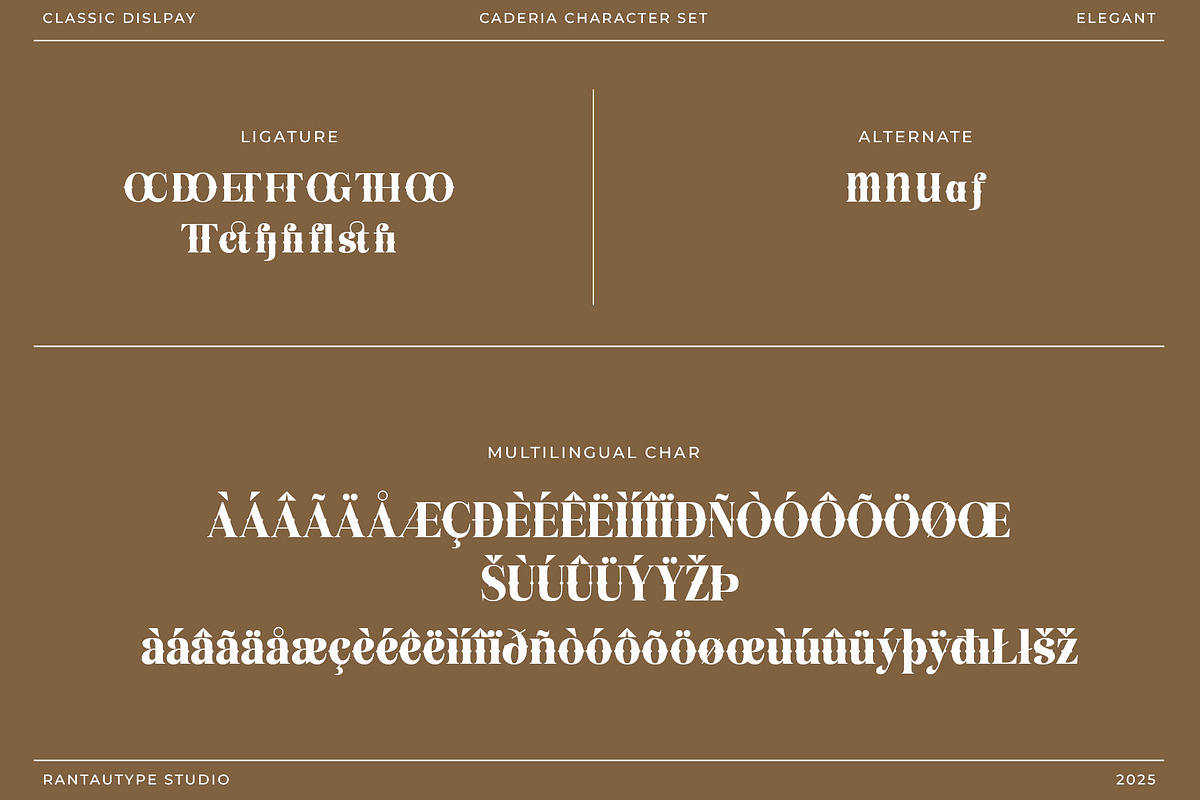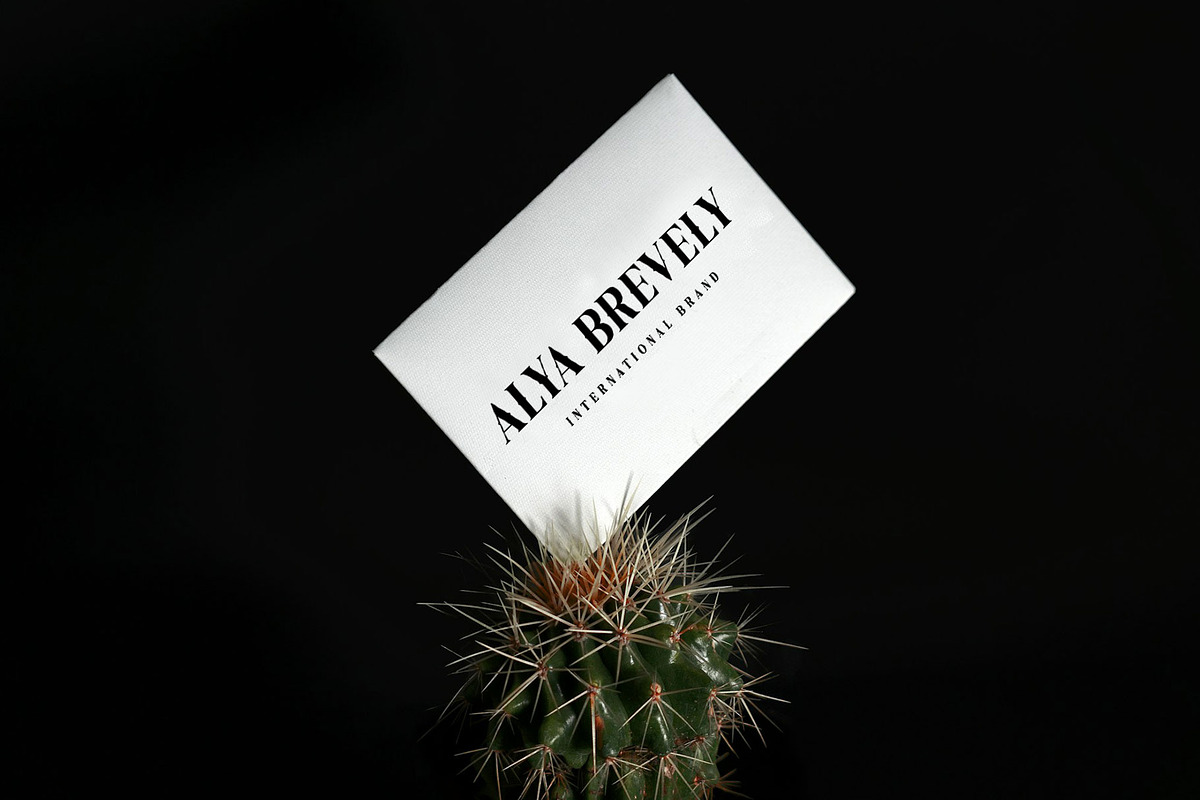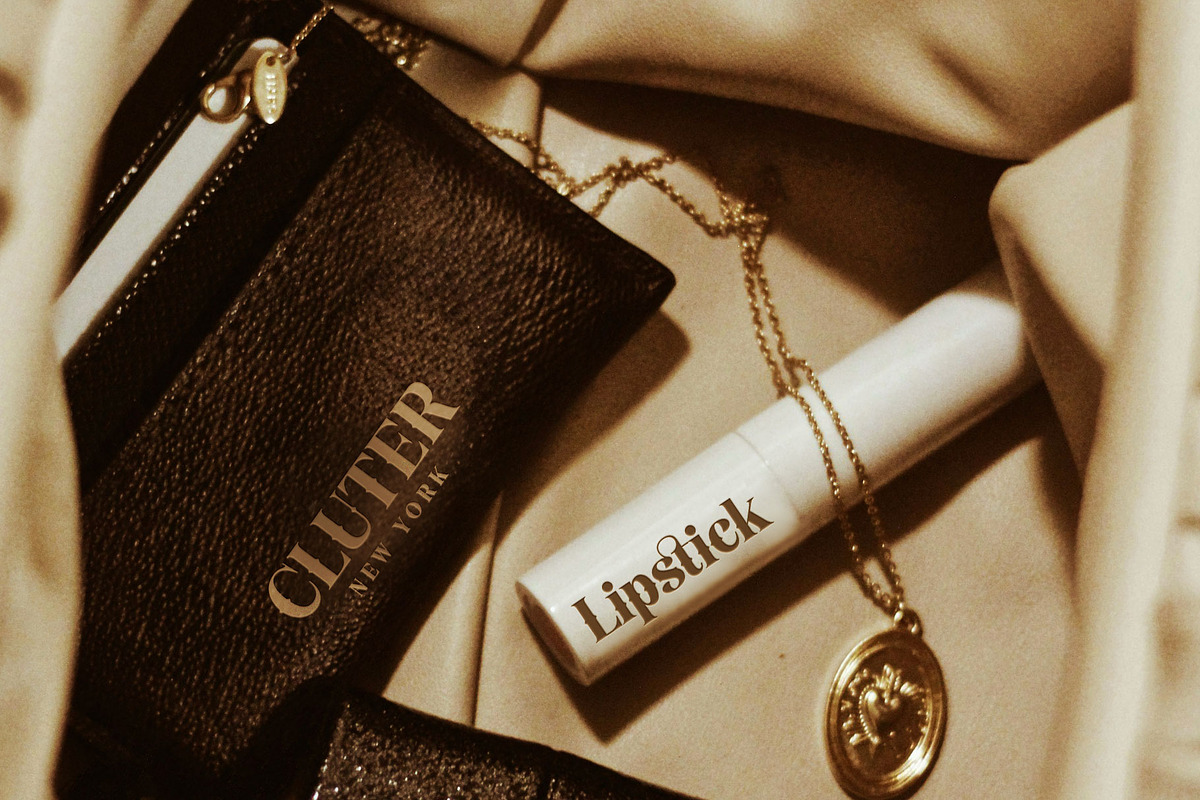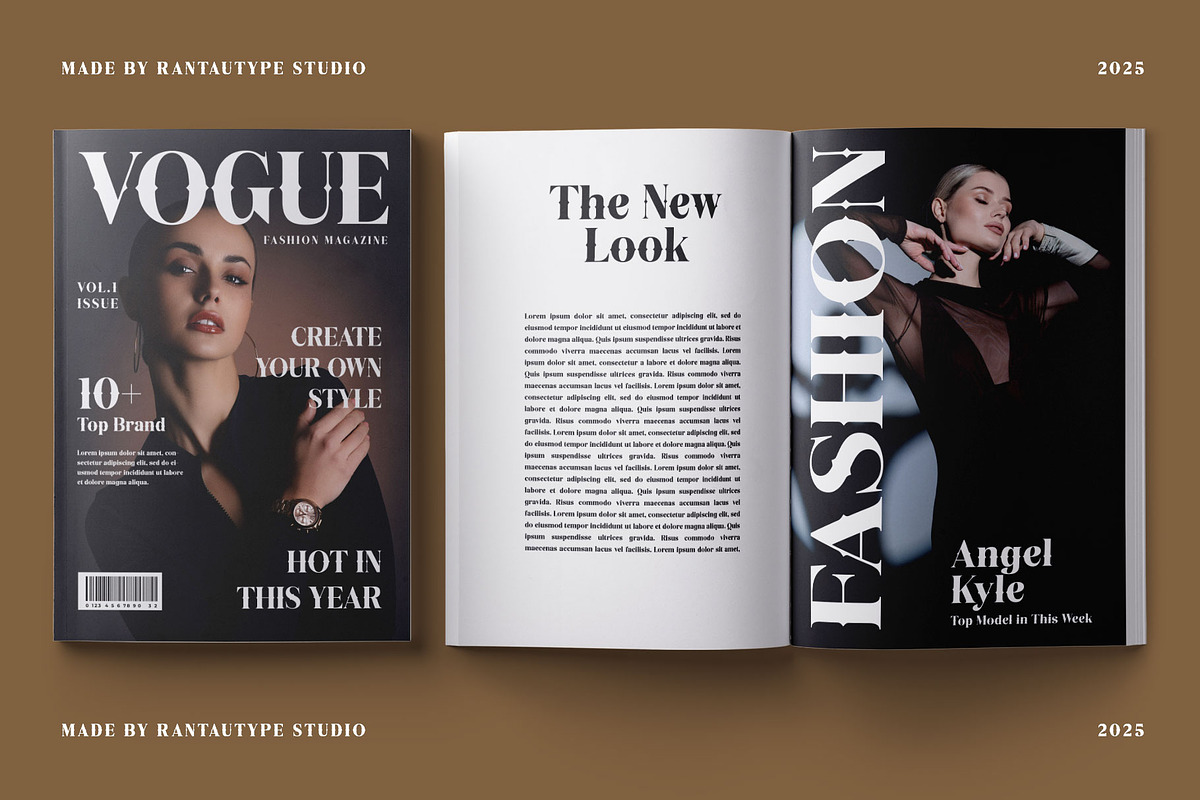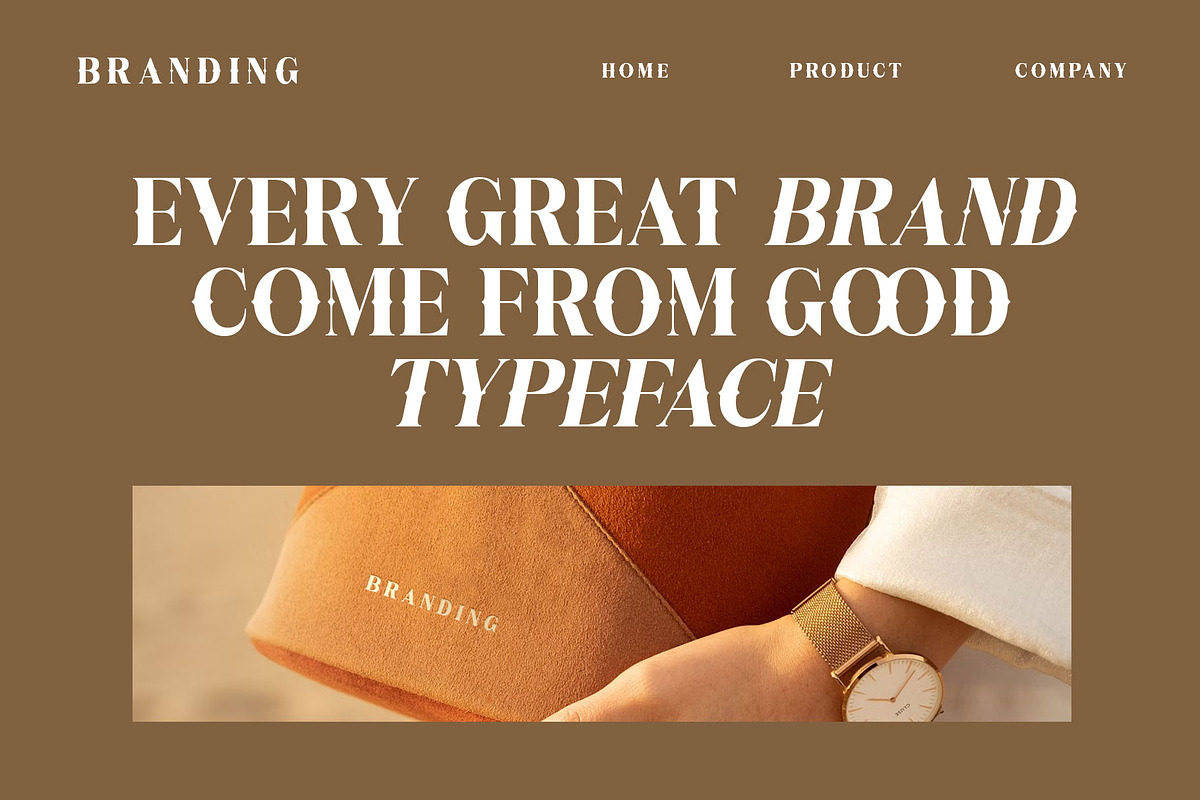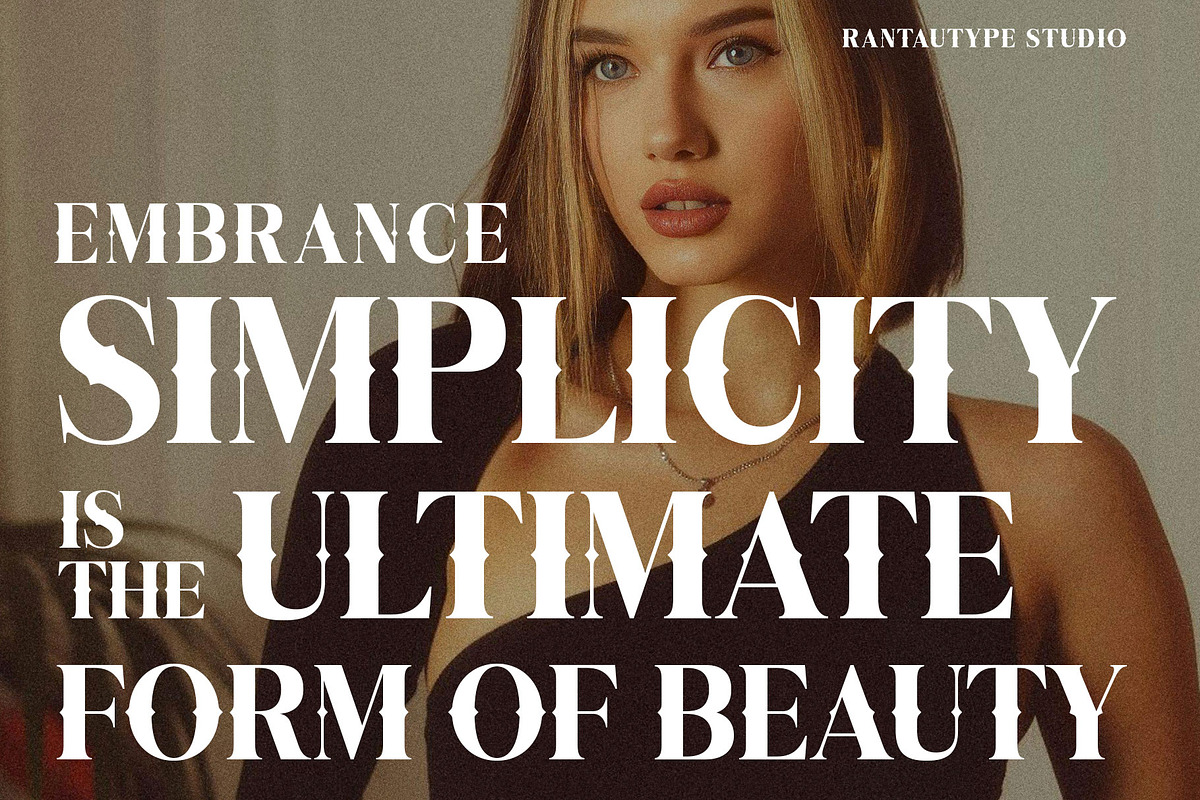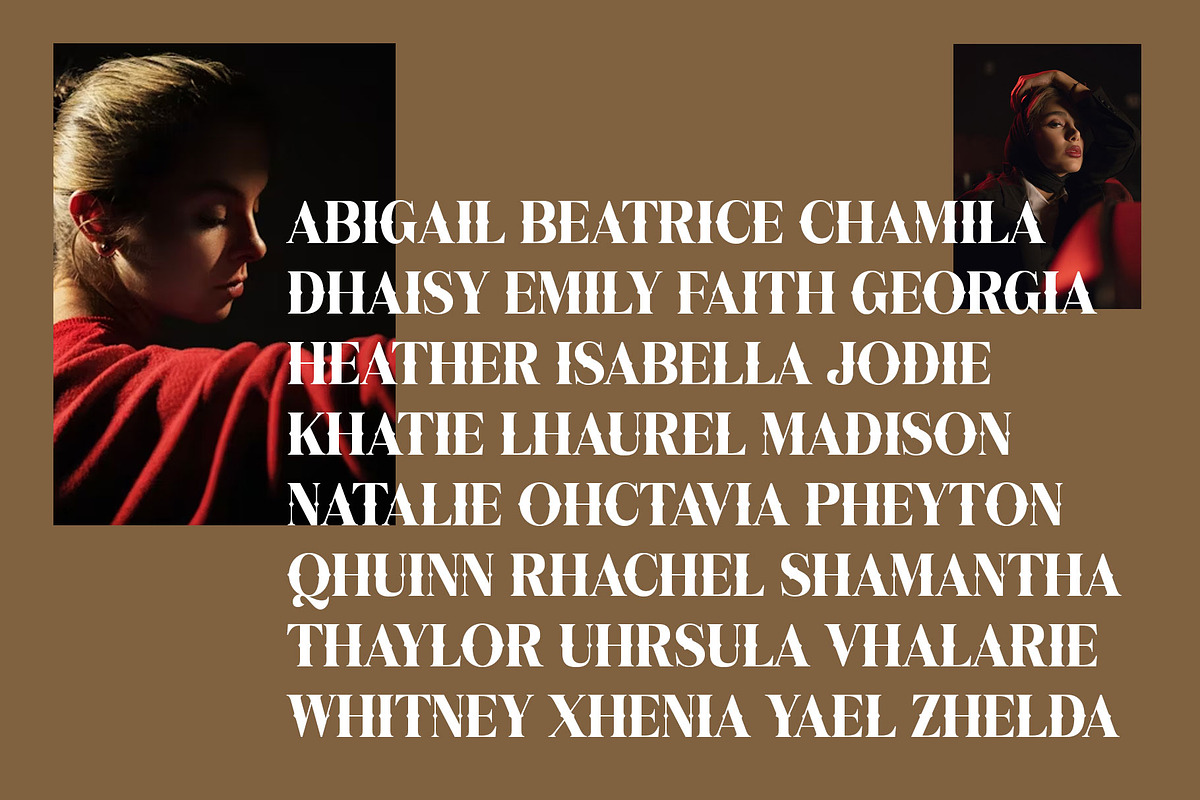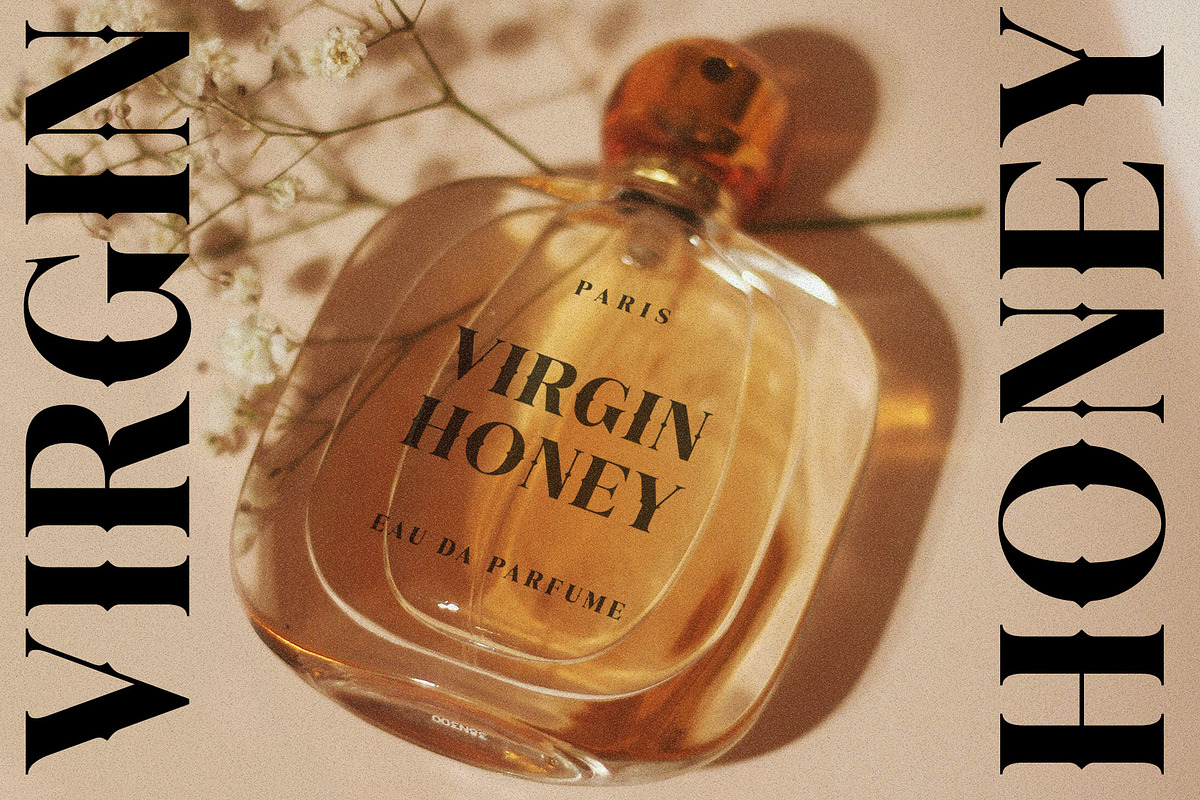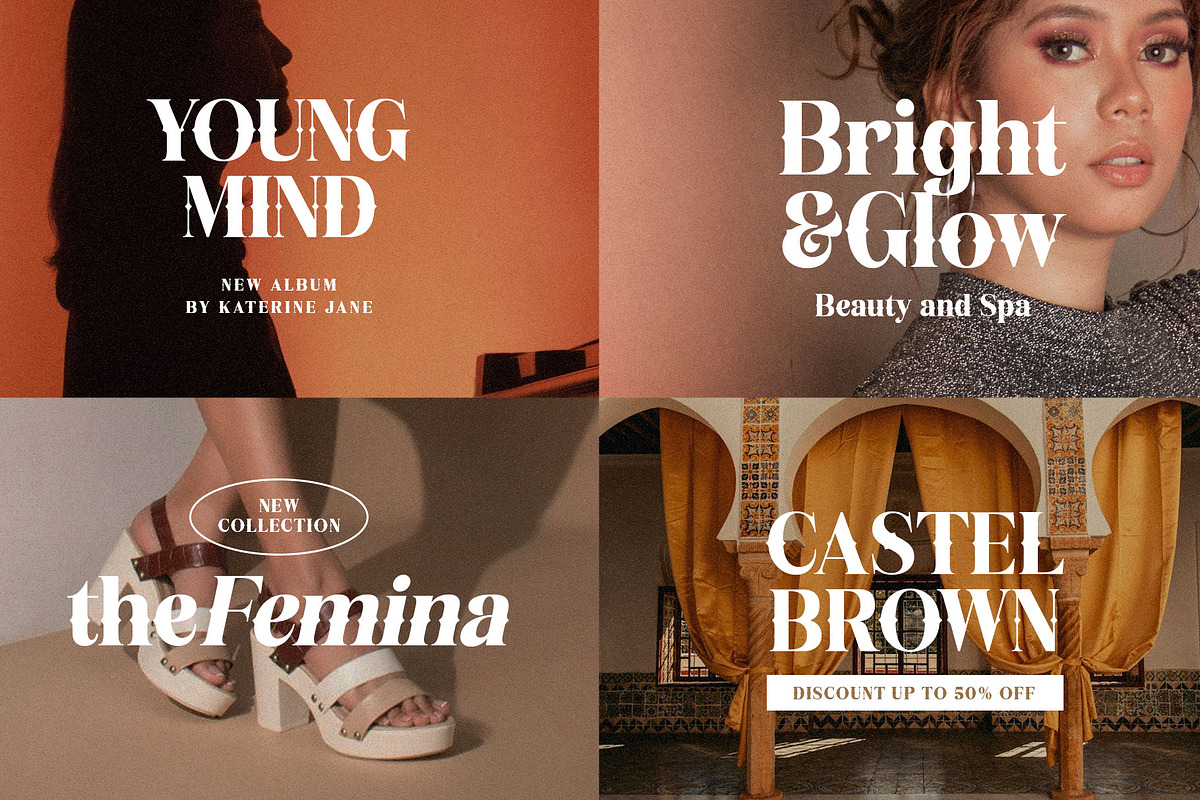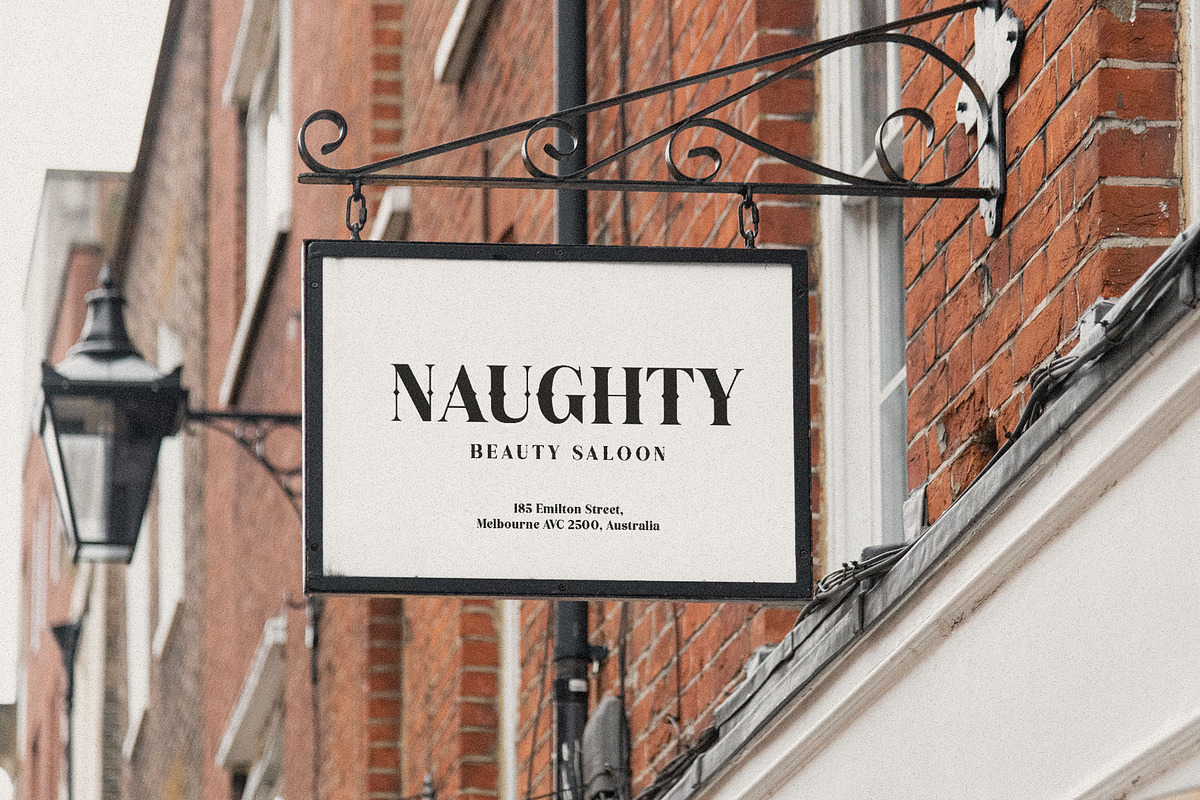
Caderia Vintage Display Serif Font
Caderia is vintage serif font made with love by rantautype studio. Caderia create decorative style into typeface look memoriable. Caderia is a perfectly choice for any creative endeavor, chic, lifestyle design such as logos, advertisements, stationery, branding project, display and magazine, invitation, corporate brand, product design, label, business project and many other project with vintage touch.
- Alternate and ligature
Fonts include Multilingual Character for: Afrikaans, Albanian, Asu, Basque, Bemba, Bena, Breton, Chiga, Cornish, Dutch, English, Estonian, Filipino, Finnish, Friulian, Galician, Gusii, Indonesian, Irish, Italian, Kabuverdianu, Kalenjin, Kinyarwanda, Luo, Luxembourgish, Luyia, Machame, North, Oromo, Portuguese, Quechua, Romansh, Rombo, Rundi, Rwa, Samburu, Sango, Sangu, Scottish, Gaelic, Sena, Shambala, Shona, Soga, Somali, Spanish, Swahili, Swedish, Swiss, German.